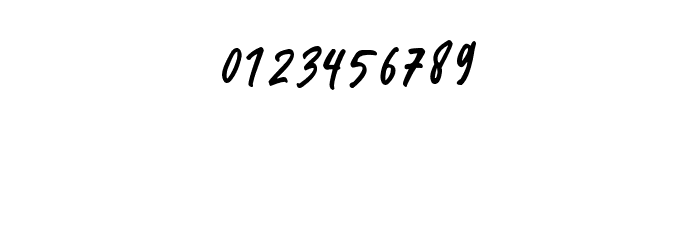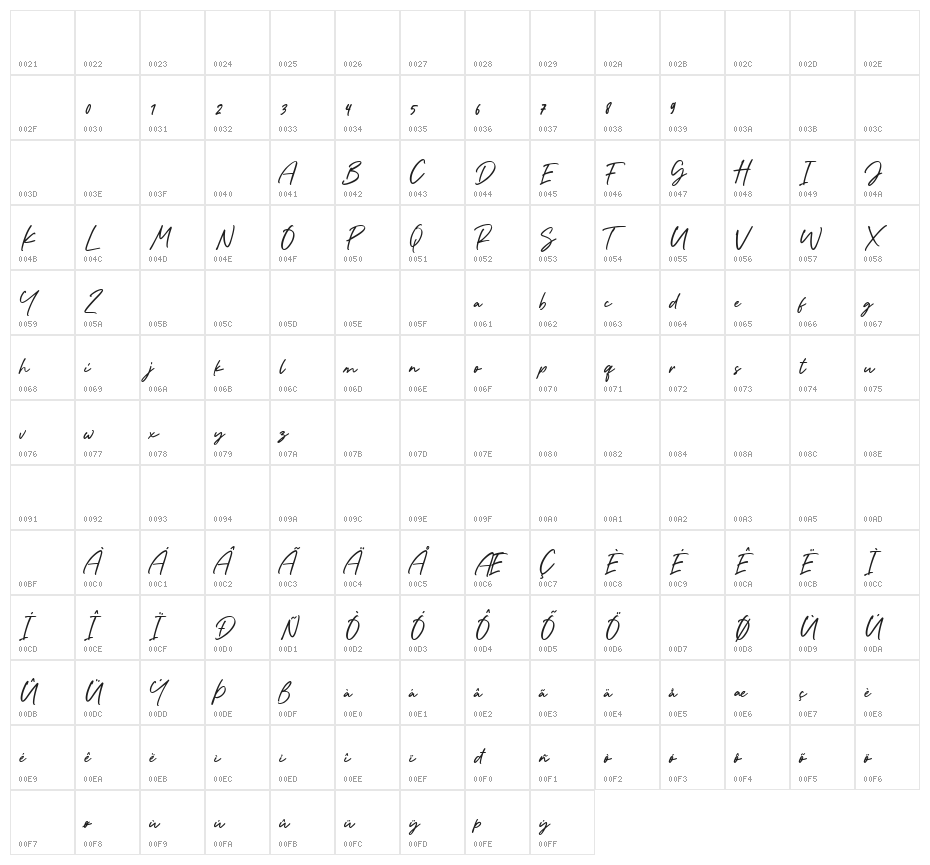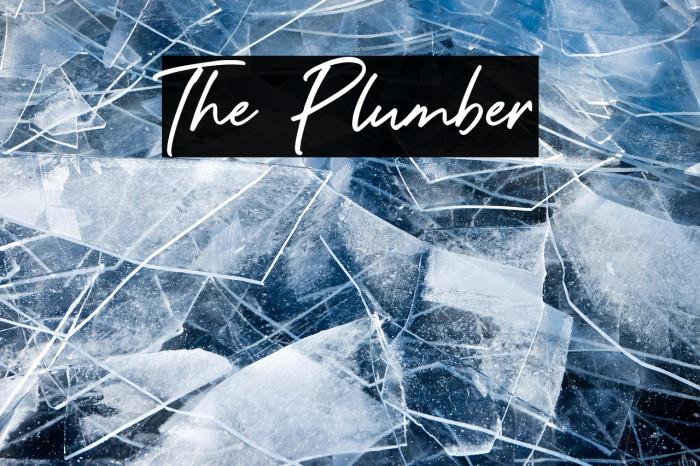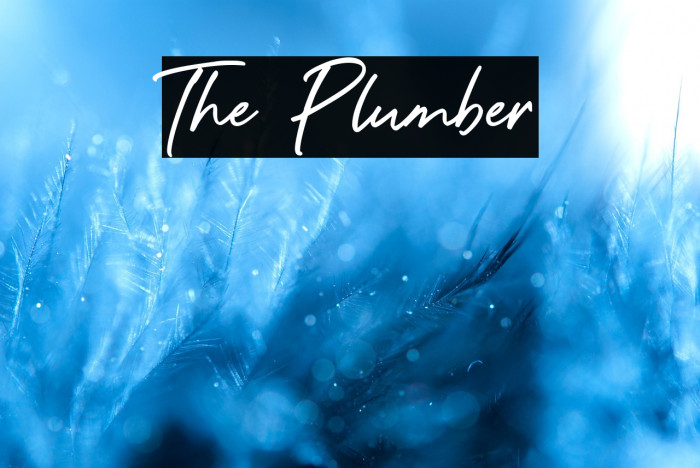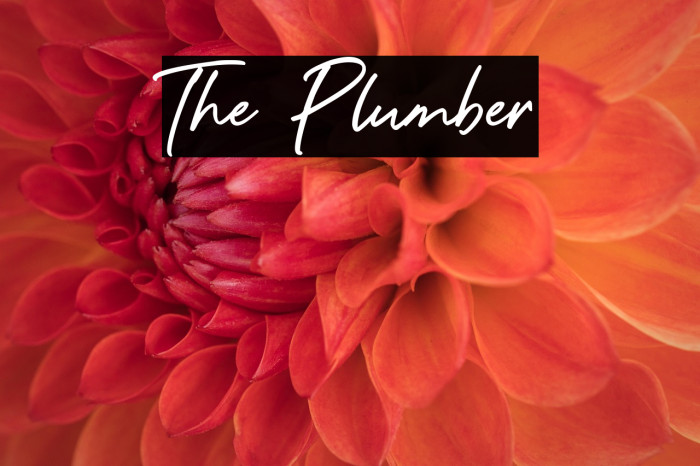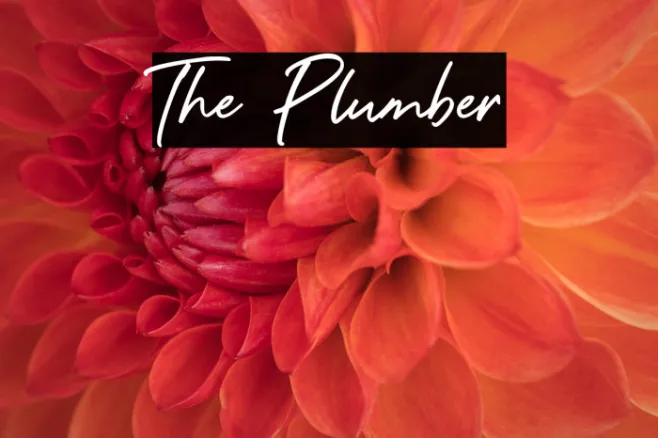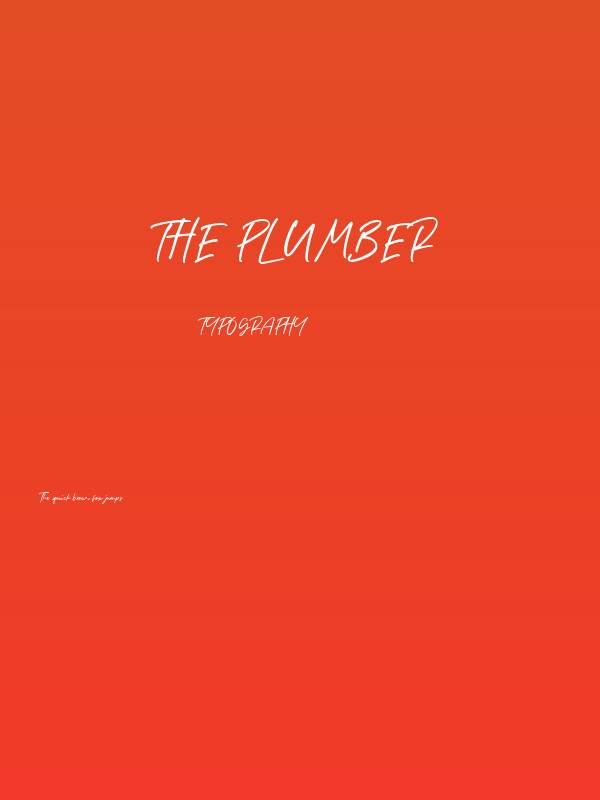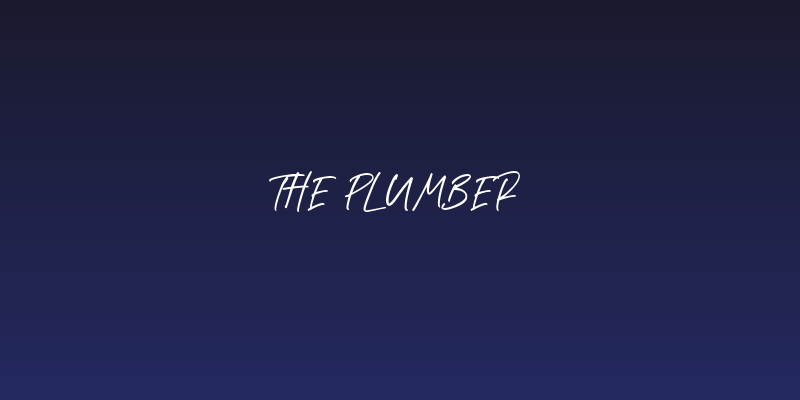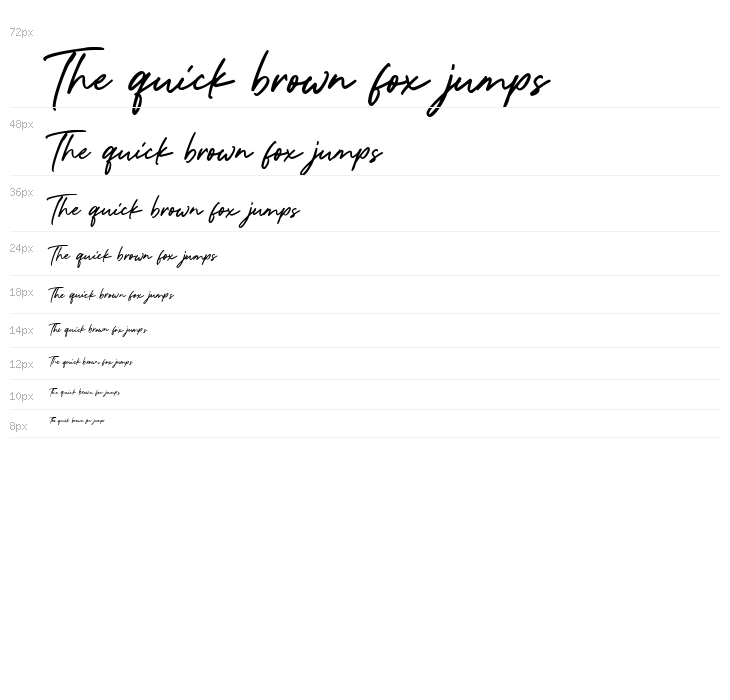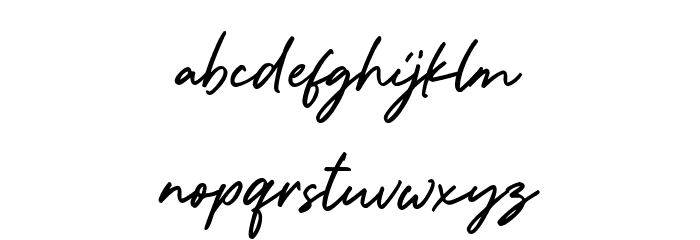
The Plumber Font
The Plumber Description
This font features a dynamic and fluid script style, characterized by its elegant, flowing lines and cursive letterforms. The uppercase letters are bold and expressive, with a slight slant that adds to the font's energetic feel. The lowercase letters maintain a consistent flow, enhancing readability while retaining a handwritten charm. Numerals are clear and distinct, fitting seamlessly with the overall style. The font's design is both modern and timeless, making it versatile for various applications.
| Proposed Projects | Ideal for wedding invitations, branding projects, greeting cards, and elegant packaging designs. |